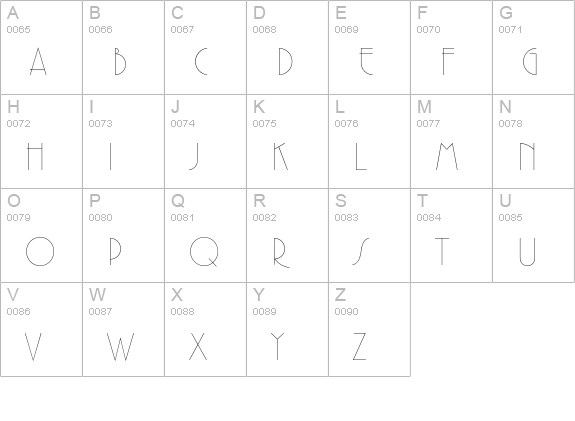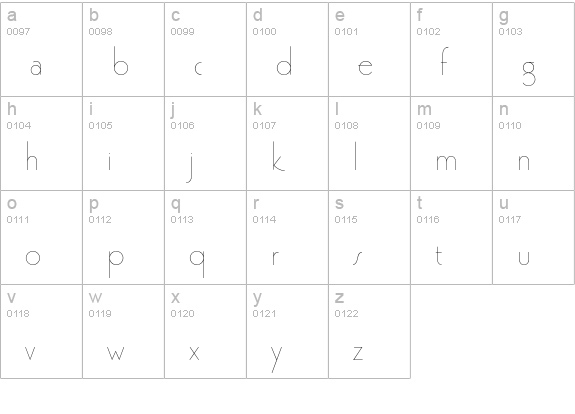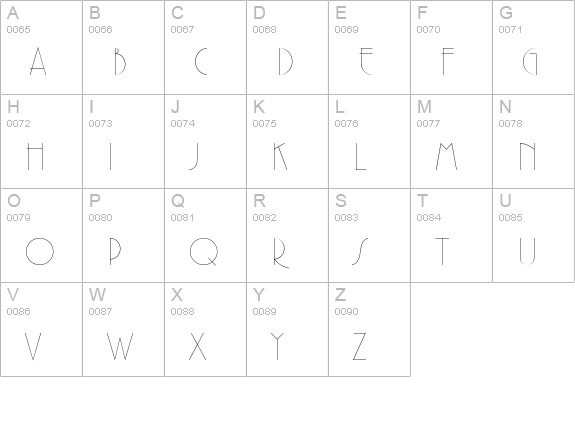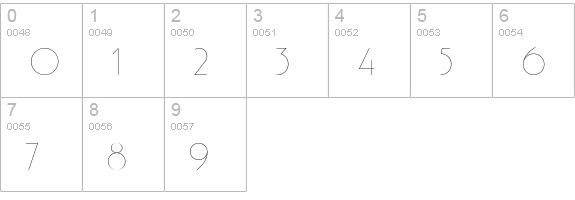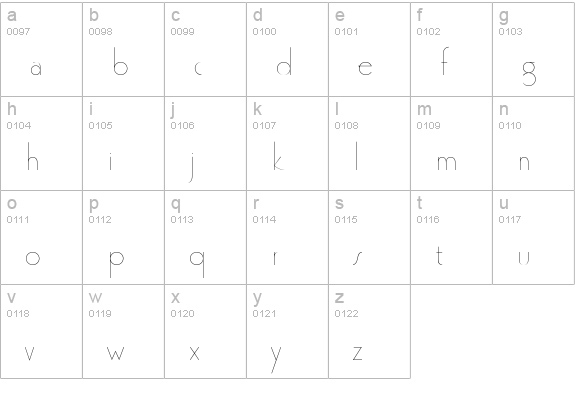
Premier Lightline Std font is a sleek and modern typeface designed to bring a touch of sophistication to your projects. With its clean lines and elegant appearance, this font is perfect for creating professional designs that stand out. The light weight of the font adds a sense of airiness and refinement to any text. Best of all, Premier Lightline Std font is available for free download at FontsMarket.com. Whether you're working on a branding project, website design, or print materials, this font is a versatile choice that will elevate your work to the next level. Don't miss out on this opportunity to enhance your designs with the timeless elegance of Premier Lightline Std font.